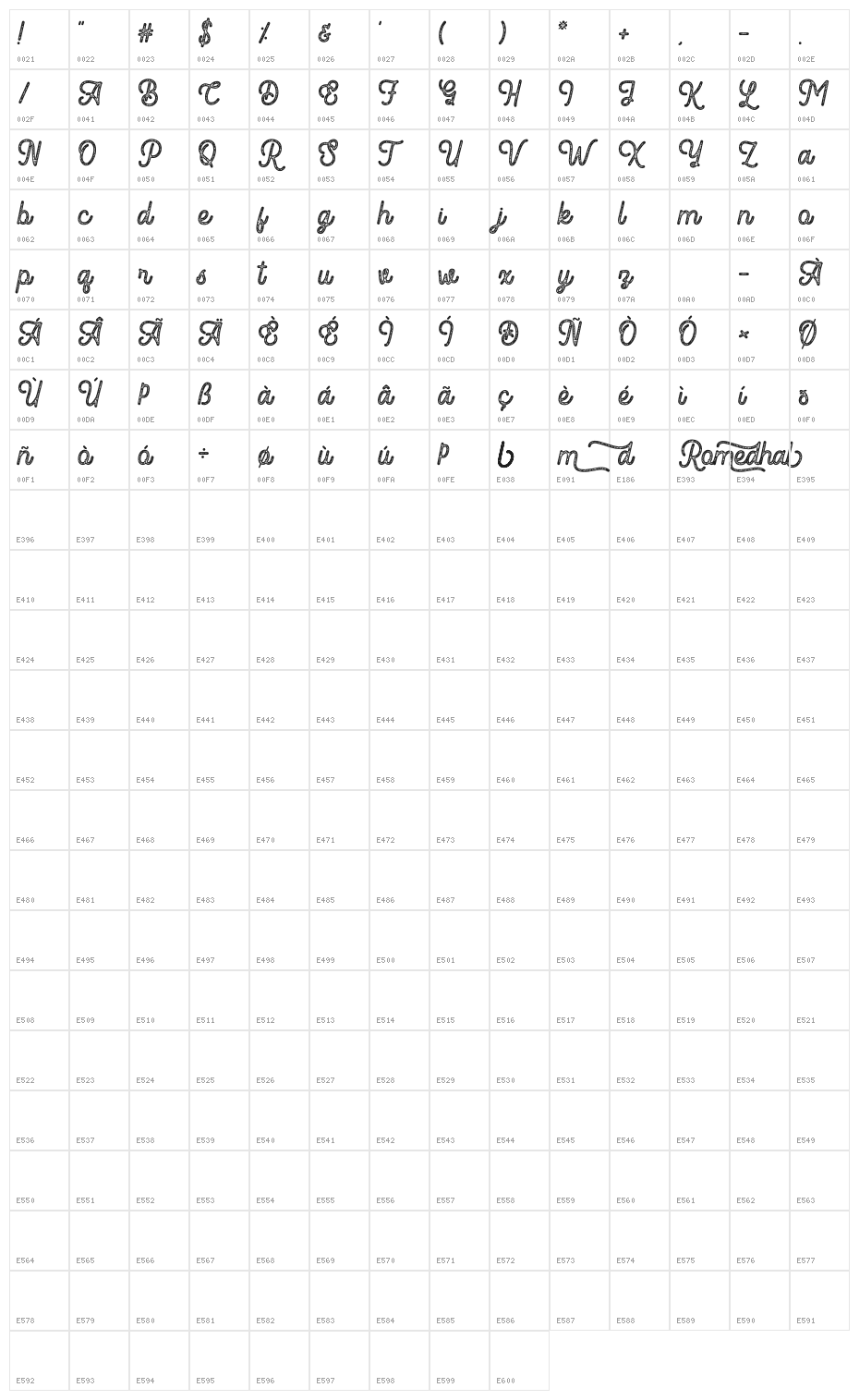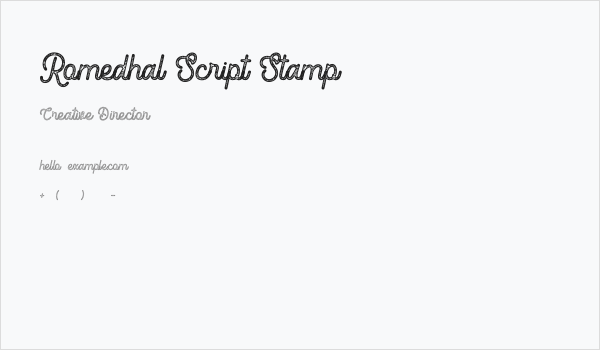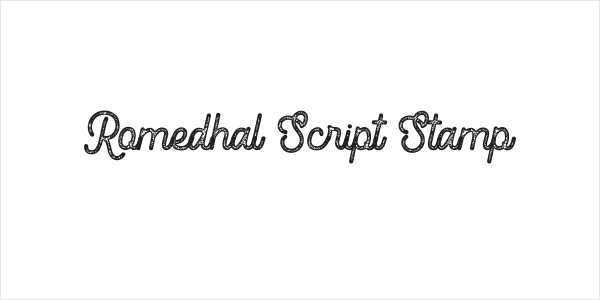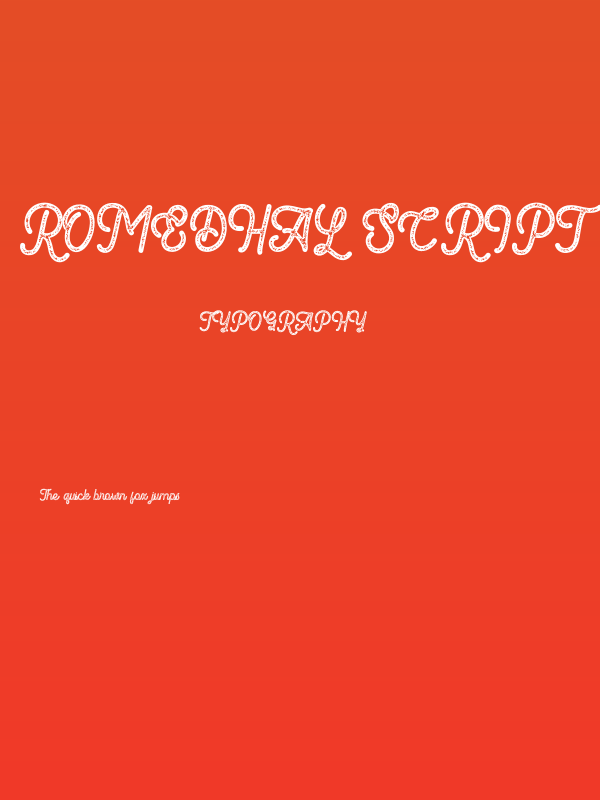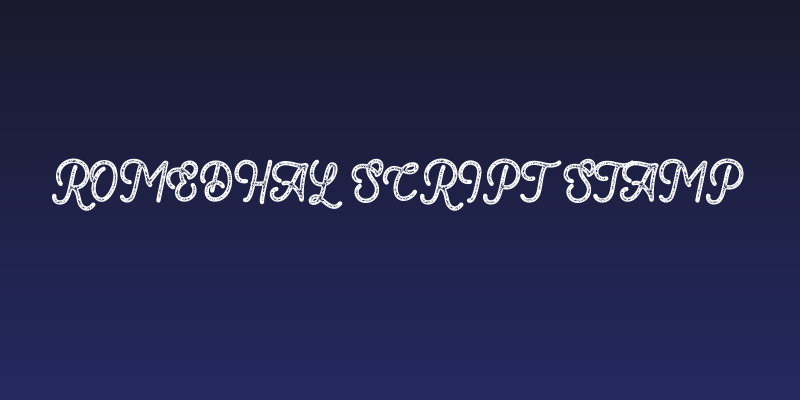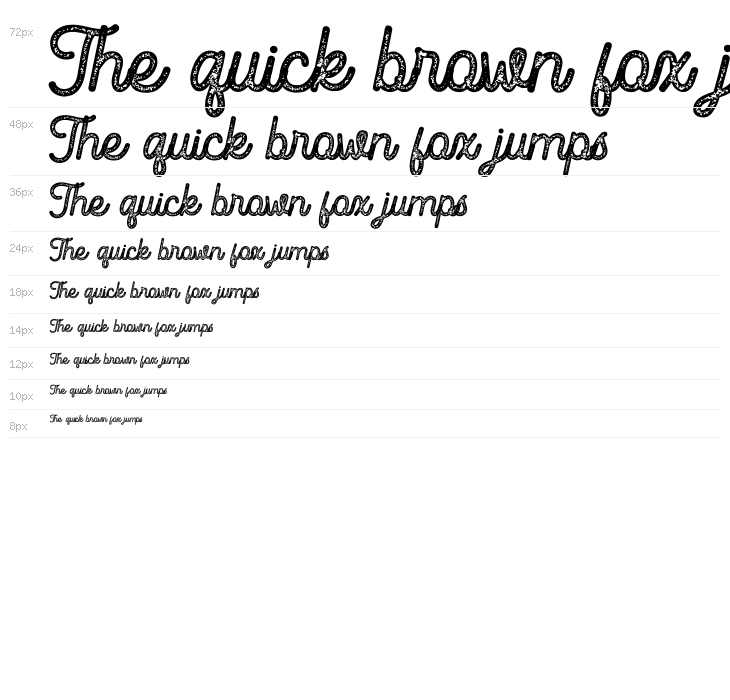
Romedhal Script Stamp Font
Romedhal Script Stamp Description
This font features a unique script style with a textured, stamped appearance. The letters are connected in a flowing manner, reminiscent of handwriting, yet they maintain a bold presence due to the thick strokes. The texture within each character adds a vintage, rustic charm, making it stand out. Uppercase and lowercase letters are well-balanced, with a consistent slant that enhances the script's fluidity. The numbers and special characters follow the same design ethos, ensuring uniformity across all glyphs. This font is perfect for projects that require a touch of elegance combined with a handcrafted feel.
| Proposed Projects | Ideal for branding, invitations, greeting cards, and packaging designs that seek a handcrafted, elegant touch. |